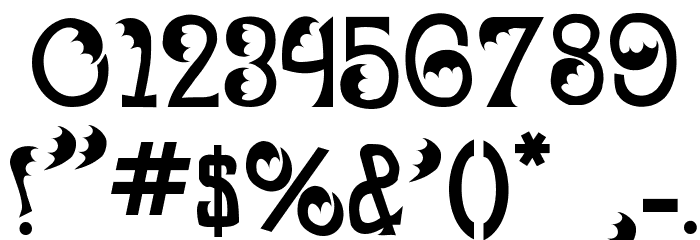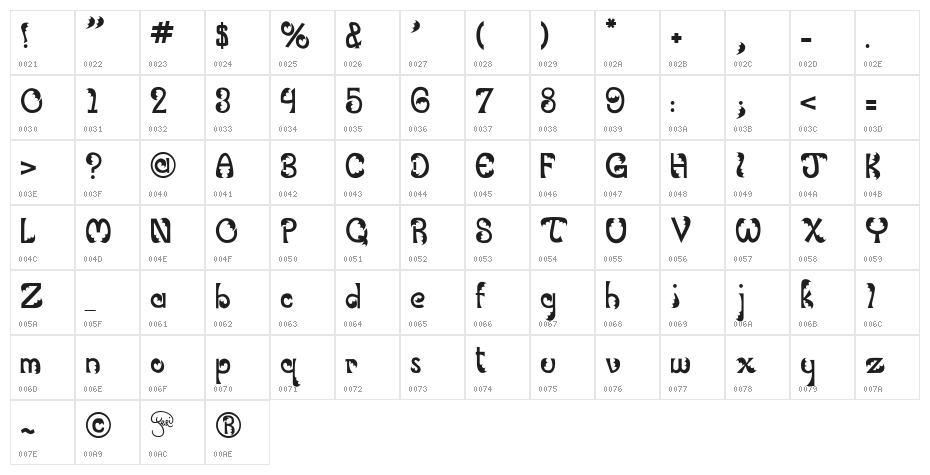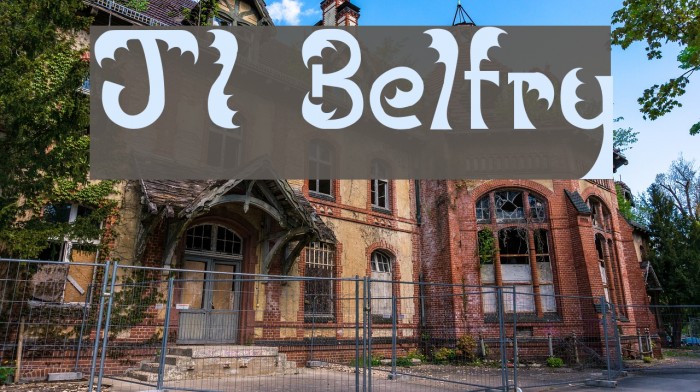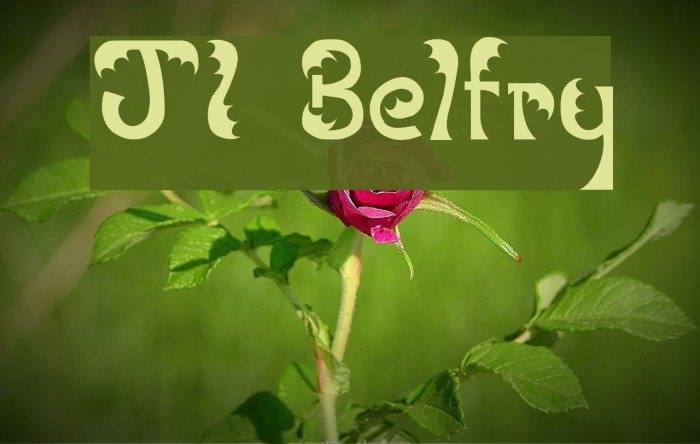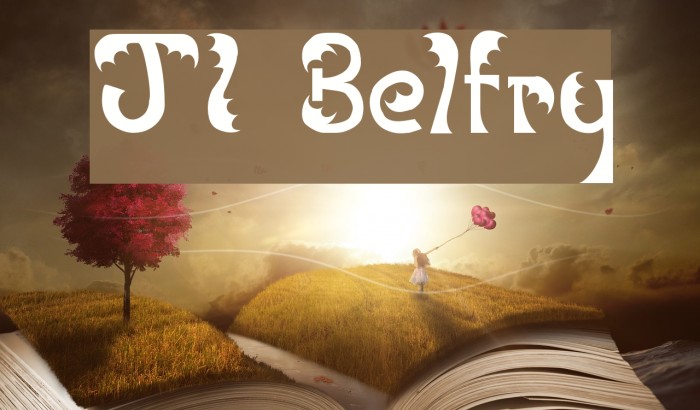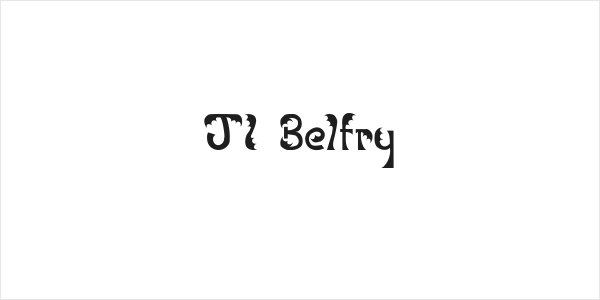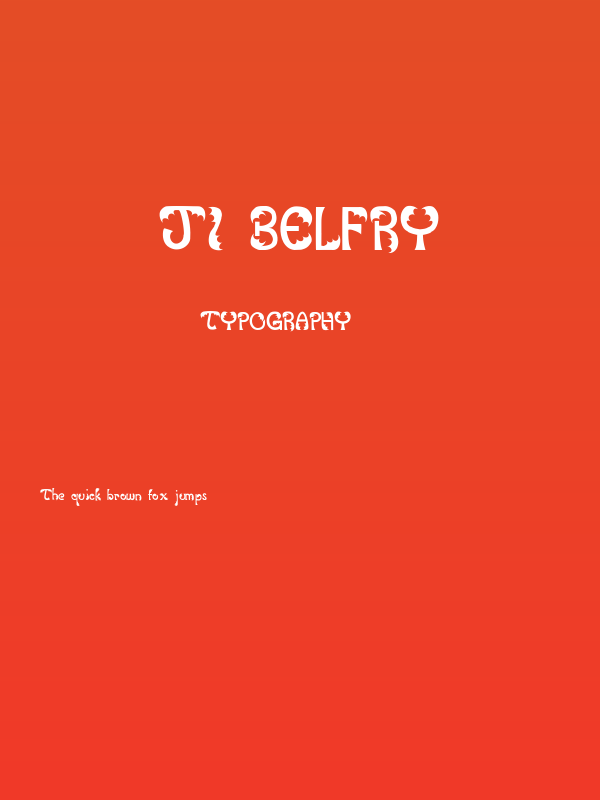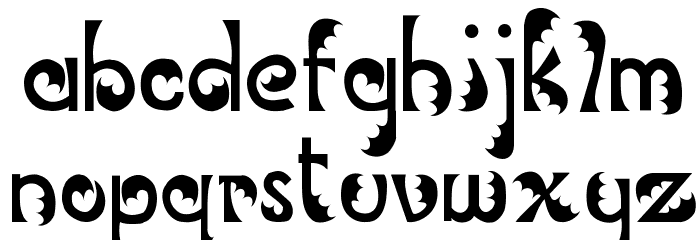
JI Belfry Font
JI Belfry Description
This font features a highly decorative and playful style, characterized by bold, thick strokes with unique cut-out patterns that resemble crescent shapes or claws. The letters are designed with a whimsical flair, making them stand out with their intricate details. The uppercase and lowercase letters maintain a consistent theme, with the lowercase being slightly more compact. Numbers and special characters follow the same decorative approach, ensuring a cohesive look across all elements. This font is ideal for projects that require a bold and eye-catching display, such as posters, headlines, or themed events.
| Proposed Projects | Ideal for posters, themed event invitations, eye-catching headlines, and creative branding. |